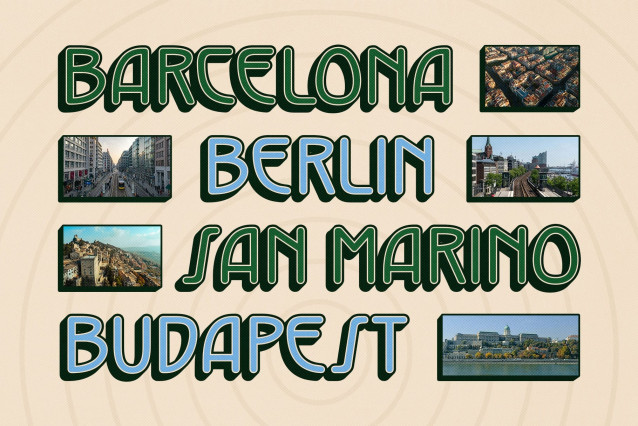
Jacelon Rounded 3D Font
Jacelon Rounded 3D Font is a modern sans-serif display font that blends the classic sophistication of Art Deco with smooth, rounded, geometric forms. The sharp lines of the Art Deco influence combined with the soft curves and rounded edges create a distinct contrast, offering a contemporary and chic appearance.